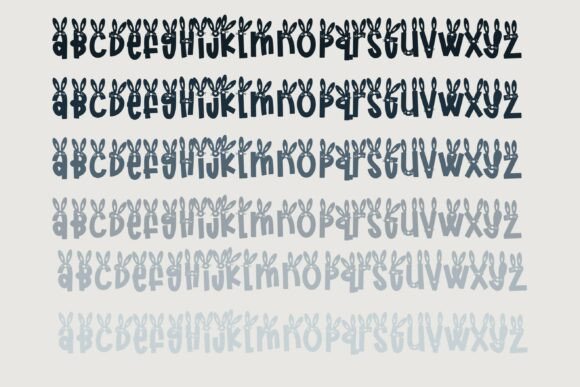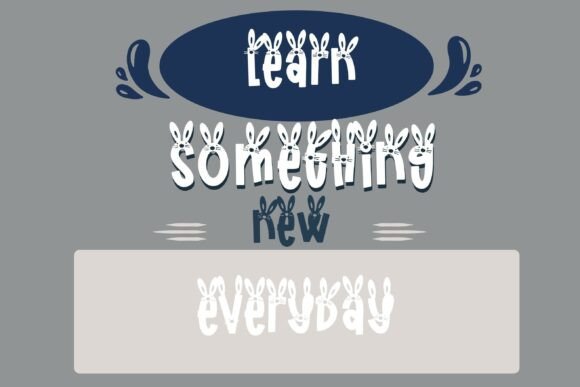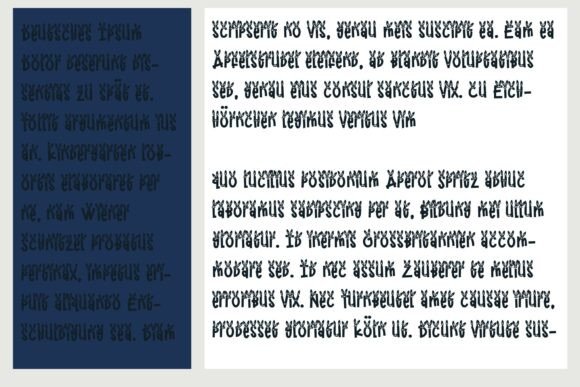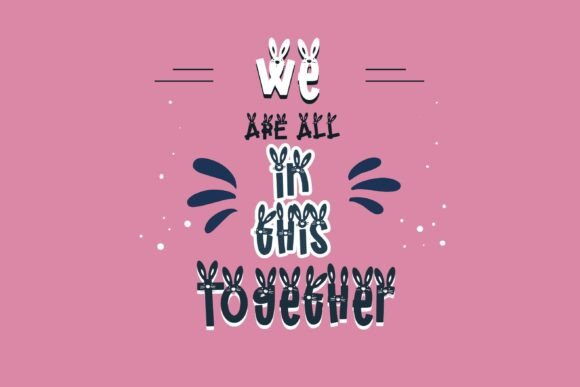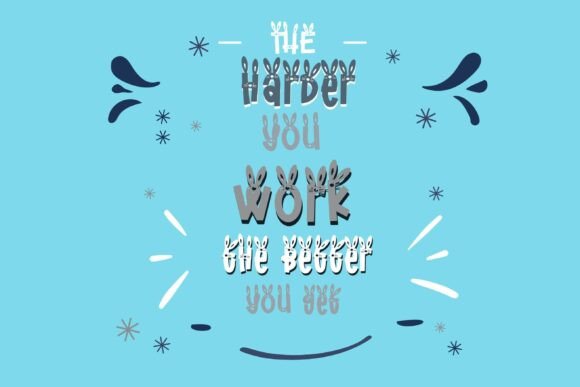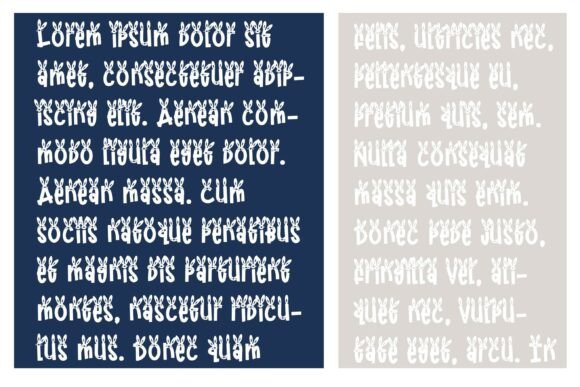
The Whimsical World of Bootleg Bunny Font
I’ll never forget the time I was working on a project for a client’s Easter-themed party invitation. I had a clear vision of a playful, hand-crafted font that would bring the festivities to life, but my usual go-to fonts just weren’t cutting it. That’s when I stumbled upon the Bootleg Bunny Font – a whimsical sans serif font with bunny ears and faces that instantly captured the essence of the occasion. In this article, I’ll share my experience with this charming font, its features, and how to make the most of it in your designs.
A Personal Review of Bootleg Bunny Font
- ✨ Unique and playful design with bunny ears and faces
- ✅ Hand-crafted feel that adds a personal touch to any project
- ⚡️ Highly versatile and suitable for various design applications
- 🎉 Extensive character set with OpenType features and glyphs
While Bootleg Bunny Font is an excellent choice for many projects, there are a few minor quirks to be aware of:
- ⚠️ Limited suitability for formal or professional designs due to its playful nature
The Backstory of Bootleg Bunny Font
Bootleg Bunny Font was designed with the intention of capturing the whimsy and playfulness of hand-crafted typography. The designer aimed to create a font that would bring a smile to the user’s face and add a personal touch to their designs. While the exact inspiration may be unknown, it’s clear that Bootleg Bunny Font is a labor of love that embodies the spirit of creative expression.
A: Bootleg Bunny Font is highly versatile and can be used in a variety of design applications, including invitations, greeting cards, and other creative projects.